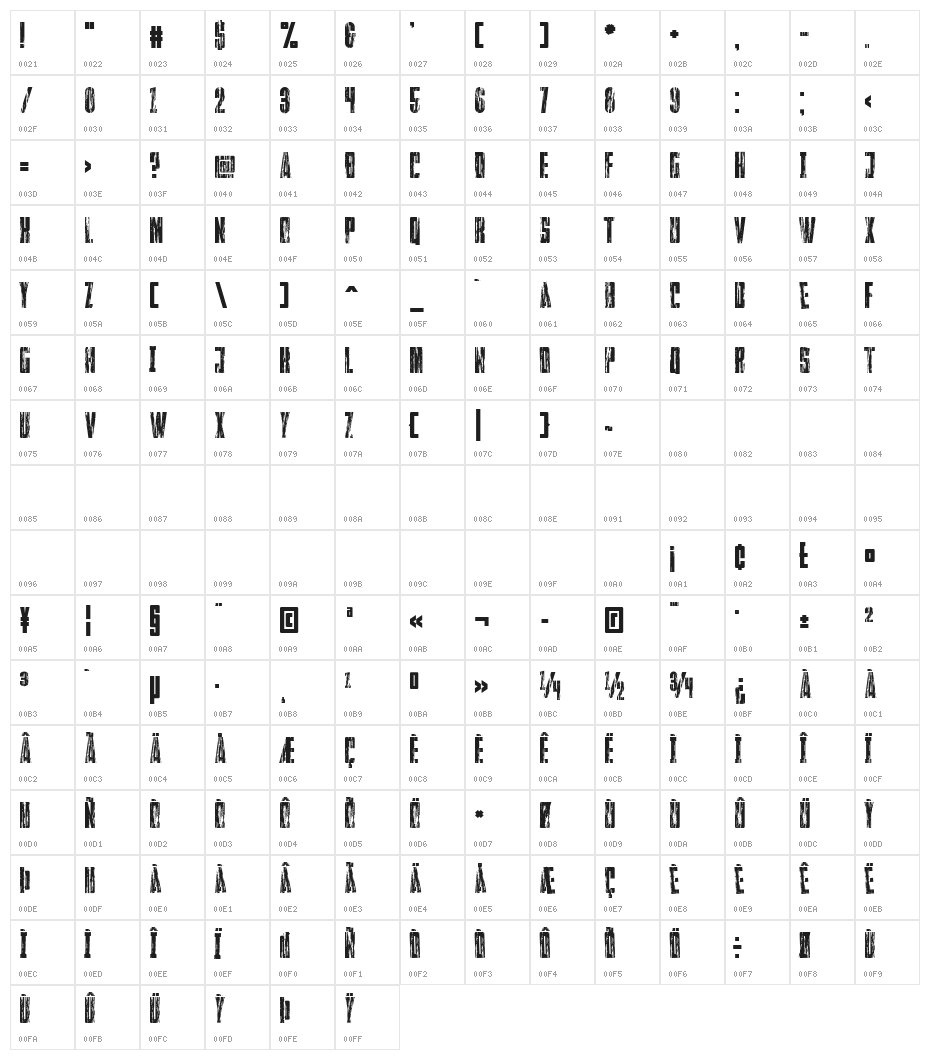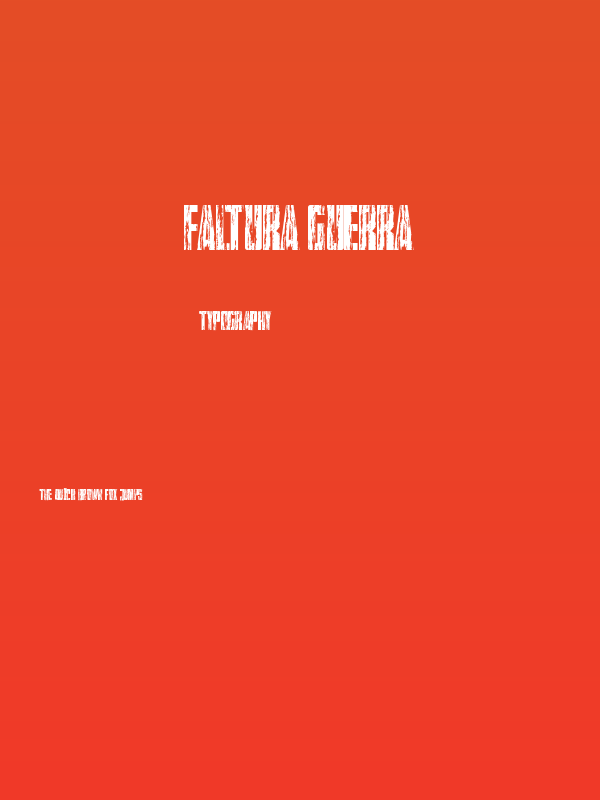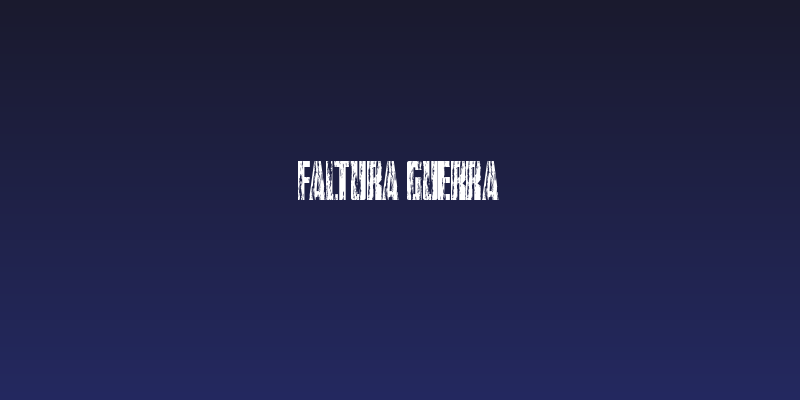
Faltura Guerra Font
Faltura Guerra Description
This font features a bold, distressed style with a grunge texture that gives it a rugged and worn appearance. The characters are uppercase and lowercase, with numbers and a selection of special characters. The design is highly decorative, with an uneven, rough texture that suggests a sense of age and weathering. The boldness of the letters makes them stand out, while the distressed effect adds a unique, edgy character. This font is ideal for projects that require a strong, impactful visual statement with a touch of vintage or rebellious flair.
| Use Case | Logos, Posters, Headlines |
| Proposed Projects | Ideal for album covers, posters, branding for edgy products, or any design needing a vintage or rebellious touch. |